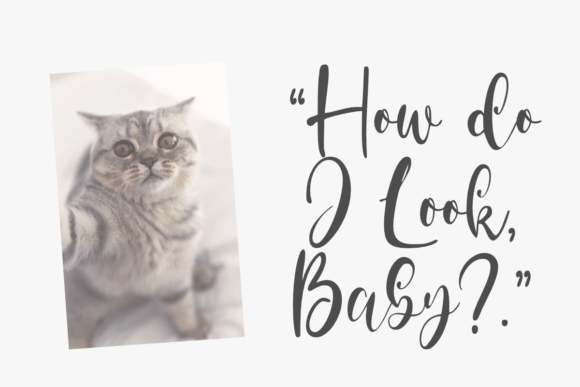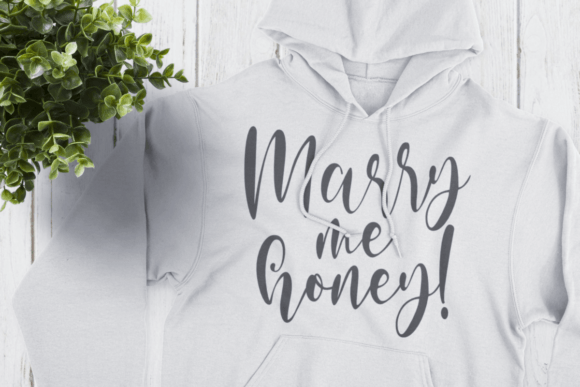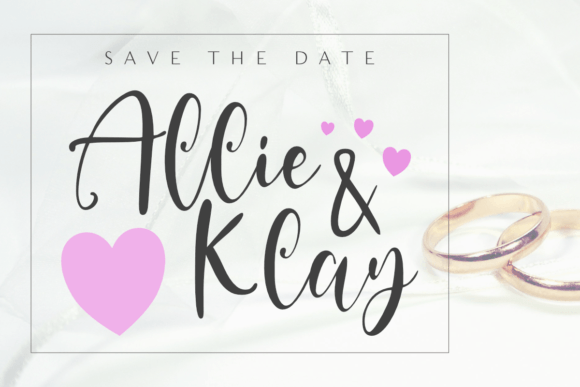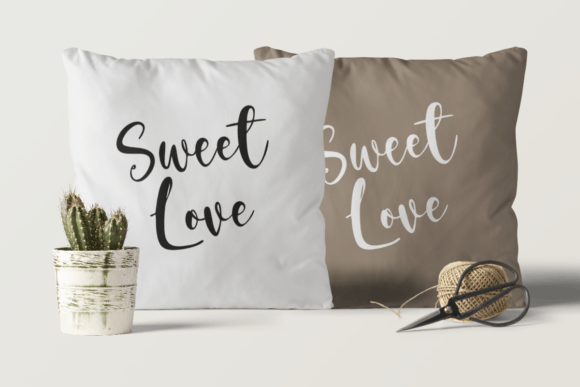
Introduction to Cute Selfie Font
Who hasn’t taken a perfect selfie, only to share it with the world on social media? The joy of capturing that special moment and making it visually appealing is something many of us can relate to. When it comes to expressing ourselves creatively, having the right tools can make all the difference. For designers, finding the perfect font to match their vision can be a challenge. This is where Cute Selfie Font comes in – a fun and cute script font that’s perfect for adding a personal touch to any project.
Cute Selfie Font is a design resource that offers a high-quality solution for those looking to add a playful twist to their work. Whether you’re creating a logo, product packaging, or crafting a special project, this font is sure to bring a smile to your face. Plus, with a transparent background, it’s easy to incorporate into any design. And the best part? It’s available for free download, making it a valuable addition to any designer’s toolkit.
Key Features of Cute Selfie Font
- Unique and playful design, perfect for creative projects and social media graphics.
- Perfect for adding a touch of whimsy and personality to your designs, making it ideal for creative projects and social media graphics.
Honest Review: Cute Selfie Font
As a designer, I’m always on the lookout for high-quality design resources that can help bring my creative projects to life. The Cute Selfie Font is one such resource that caught my attention, and I’m excited to share my honest review with you.
Here are some things that work well with the Cute Selfie Font: ✨
- High-quality design: The font is well-designed and looks great on a transparent background, which is perfect for creating eye-catching graphics.
- Creative possibilities: The Cute Selfie Font is perfect for social media graphics, blog posts, and other creative projects where a playful, cursive font is needed.
- Limited font styles: The font comes in only a few styles, which may limit its versatility in certain design contexts.
- No bold or italic variations: If you need a bold or italic version of the font, you may be out of luck.
Overall, the Cute Selfie Font is a solid choice for designers looking for a free, high-quality font for their creative projects. While it may have some limitations, its unique style and playful feel make it a great addition to any design library.
Designing with Cute Selfie Font
To use the Cute Selfie Font, create a new project and select the font from the font library. You can use it to create high-quality designs for your creative project, such as social media graphics, invitations, or posters.
Tips for Getting the Most Out of Cute Selfie Font
For the best results, use the Cute Selfie Font on a transparent background to give your design a clean and modern look. You can also experiment with different font sizes, colors, and combinations to create unique designs.
The Cute Selfie Font is ideal for creating fun and playful designs for:
- Invitations and party decorations
Alternatives to Cute Selfie Font
Pacifico is a beautiful, elegant script font perfect for creative projects that require a touch of sophistication. It’s ideal for wedding invitations, branding, and other high-quality design resources. This font is free to download and features a transparent background, making it easy to use in various design applications.
Pacifico compares to Cute Selfie Font in terms of its high-quality design, but it lacks the playful, casual feel of the original font. Use Pacifico when you need a more refined and sophisticated look for your design project.
Great Vibes is a modern, cursive font that’s perfect for creative projects that require a fun and playful touch. It’s free to download and features a transparent background, making it easy to use in various design applications. This font is ideal for social media graphics, blog posts, and other design resources.
Is Cute Selfie Font suitable for high-quality printing?
Yes, Cute Selfie Font is designed to be high-quality and suitable for printing. The font files are created with high-resolution graphics, ensuring that the font looks crisp and clear when printed. However, please note that the quality of the print will also depend on the printing equipment and settings used.